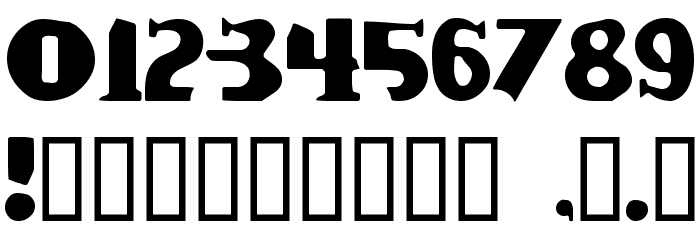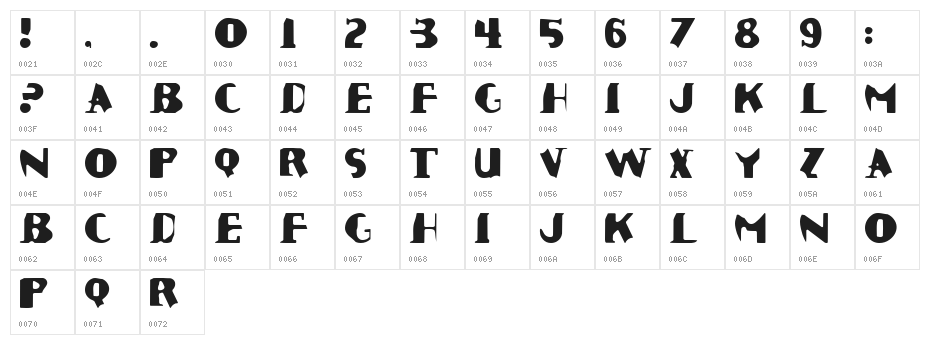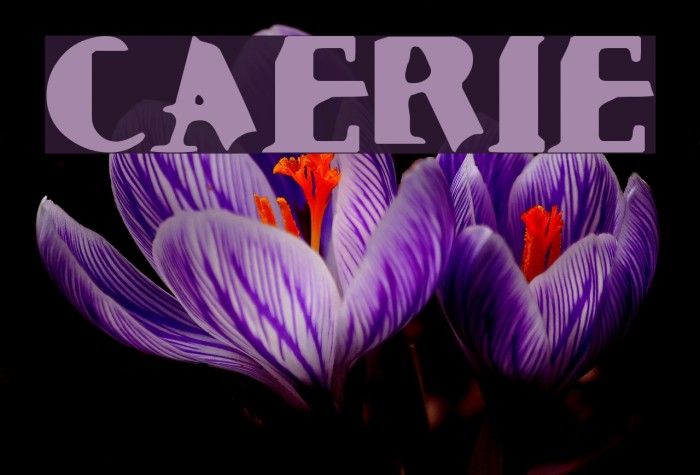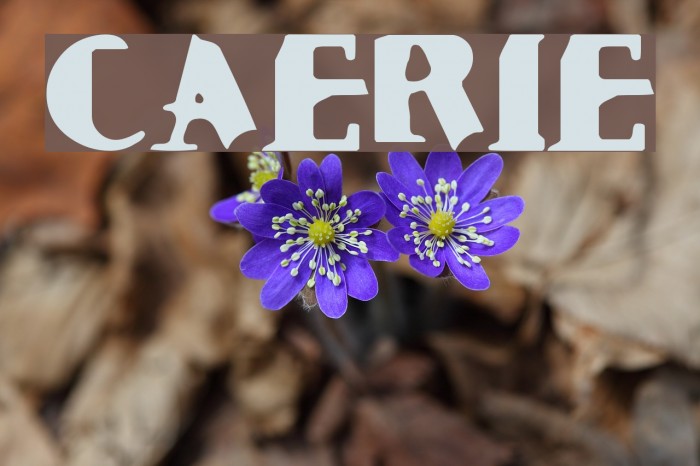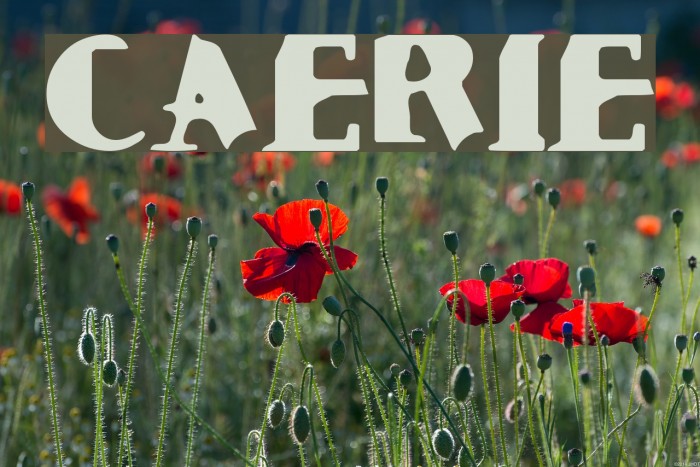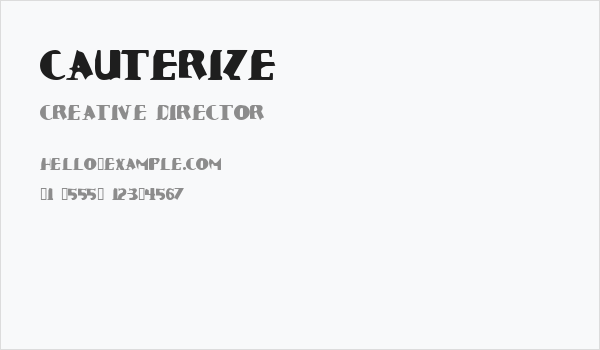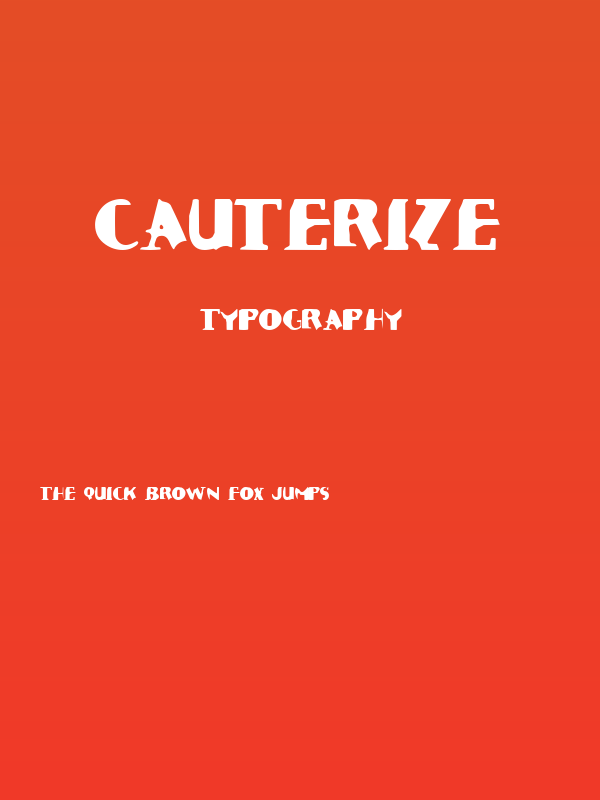
Cauterize Font
Cauterize Description
This font features a bold and striking design with a unique blend of sharp edges and smooth curves. The uppercase letters are characterized by their strong presence and distinctive angular cuts, giving them a modern and edgy appearance. The lowercase letters maintain a consistent style, complementing the uppercase with their bold and dynamic shapes. The numbers are equally bold, ensuring readability while maintaining the font's overall aesthetic. Special characters are designed to match the boldness and style of the alphanumeric characters, making this font suitable for a variety of creative projects.